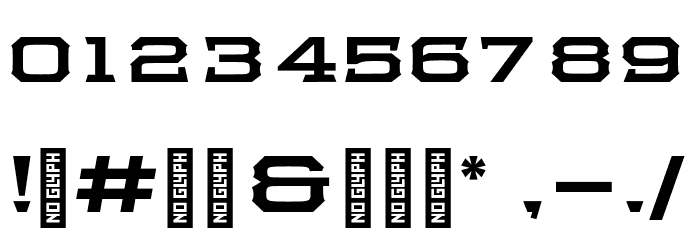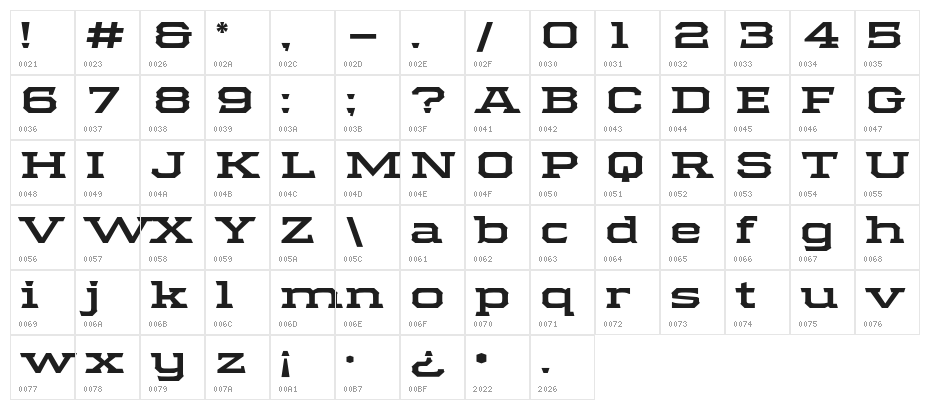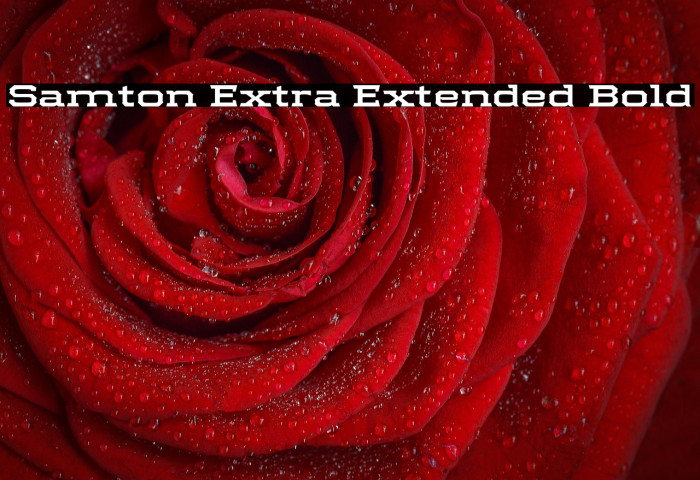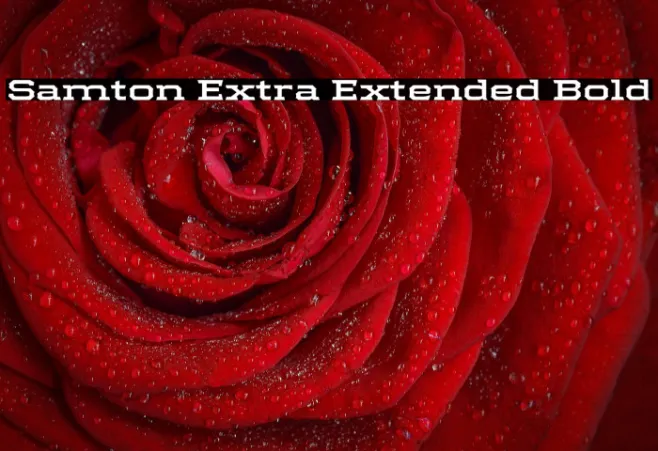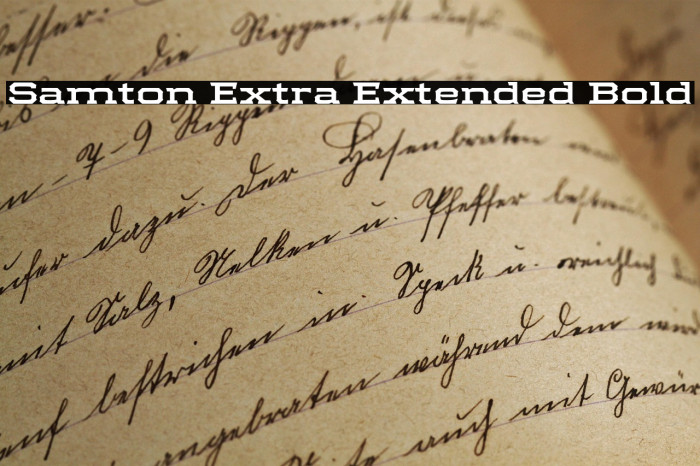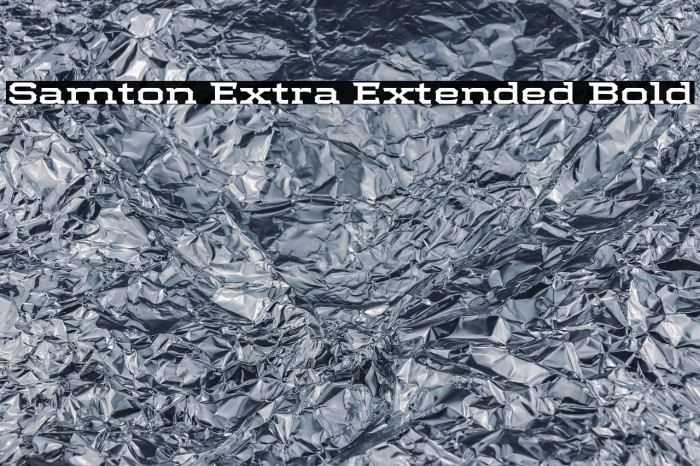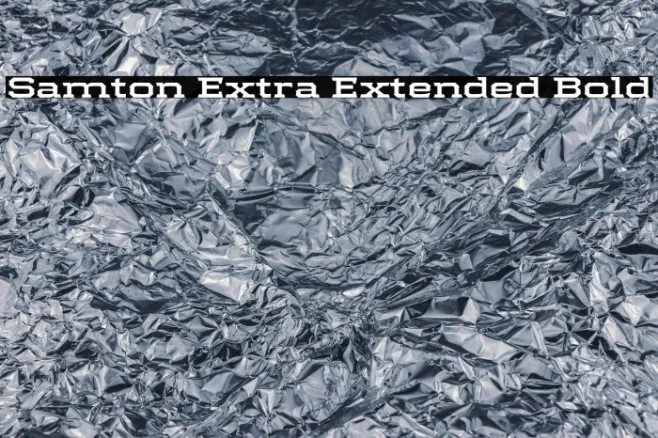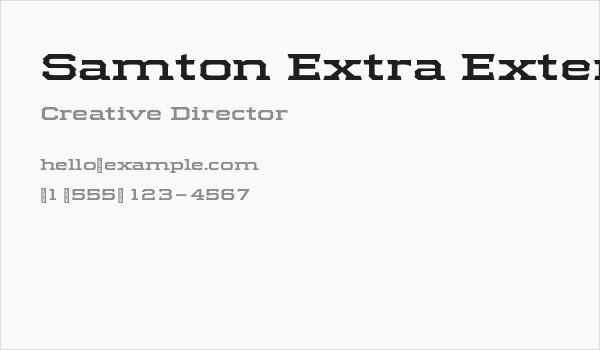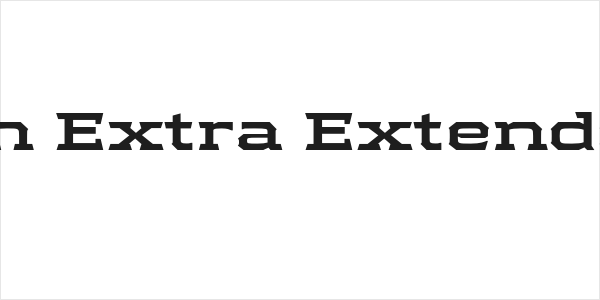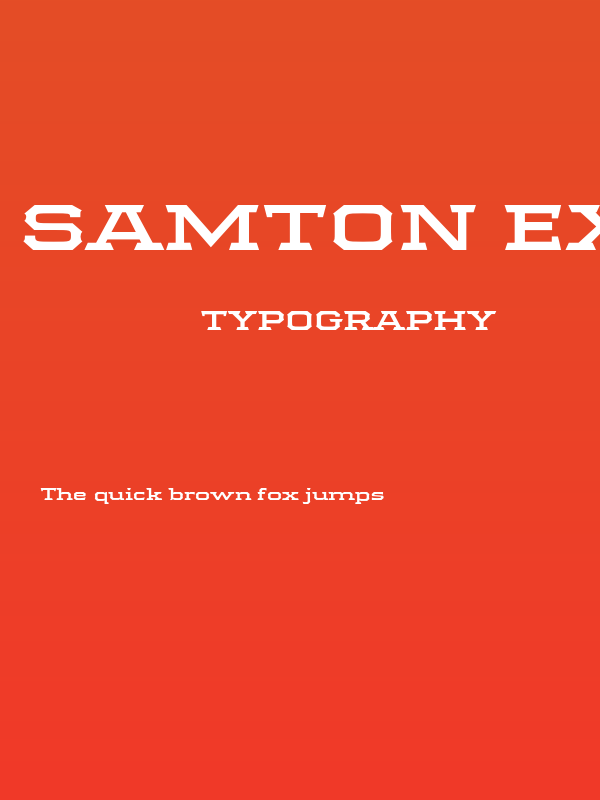
Samton Extra Extended Bold Font
Samton Extra Extended Bold Description
This font features a bold and extended style with a strong, impactful presence. The characters are designed with a slab serif structure, giving them a sturdy and robust appearance. The uppercase and lowercase letters maintain a consistent width, contributing to a uniform look across text. The numbers are equally bold, matching the letterforms in weight and style. The font lacks certain special characters, as indicated by placeholders, but includes basic punctuation. Its overall design is modern with a hint of vintage, making it suitable for projects that require a bold statement.
| Overall Style | Modern, Vintage |
| Proposed Projects | Ideal for headlines, posters, branding, and any project needing a strong visual impact. |